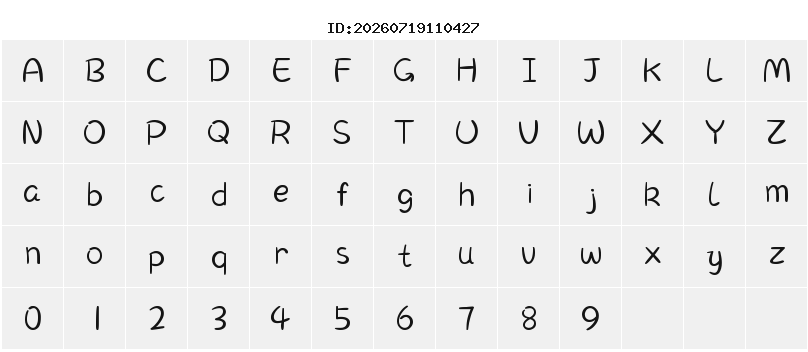
• Font Name: YEFONTChuiPaoPaoTi 標準
• Full Font Name: 也字工厂吹泡泡体 标准
• Manufacturer: 也字工厂
YEFONTChuiPaoPaoTi 標準.TTF is a modern, elegant sans-serif font designed for ultimate readability and visual harmony. Perfect for branding, headlines, web design, and print materials.